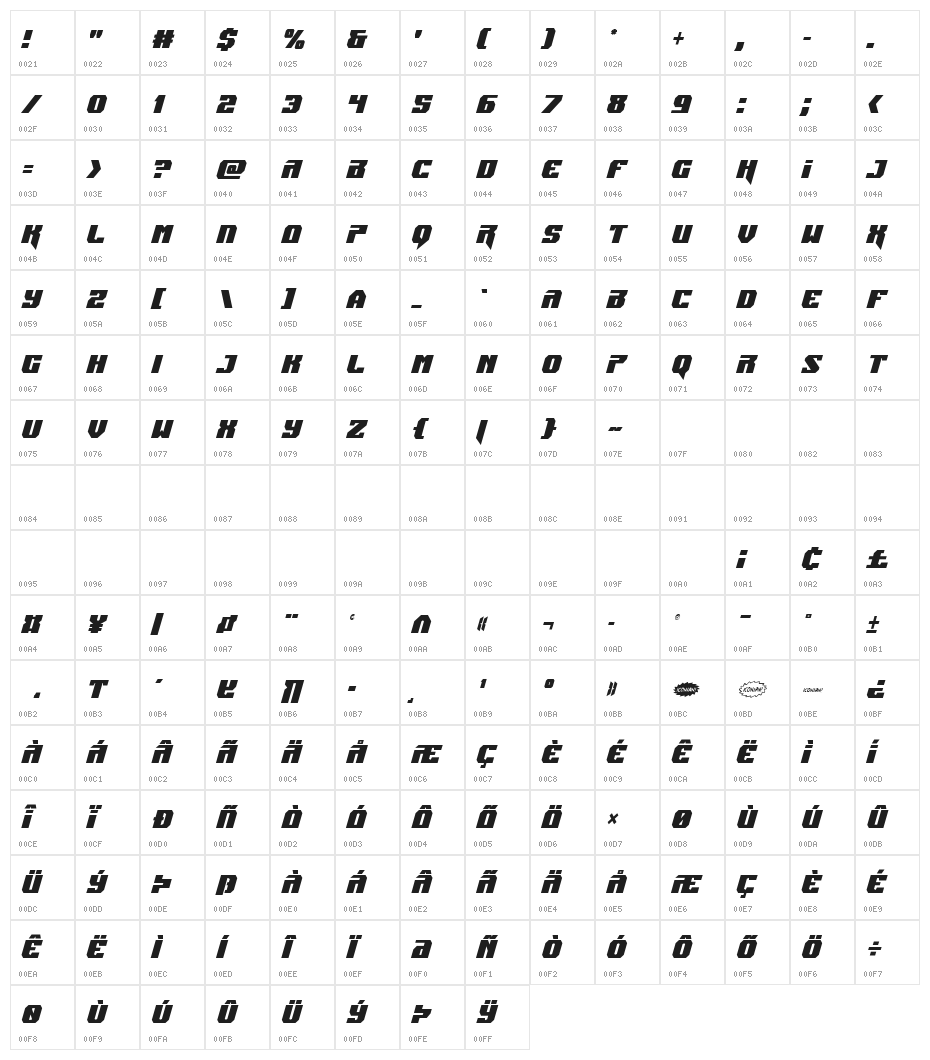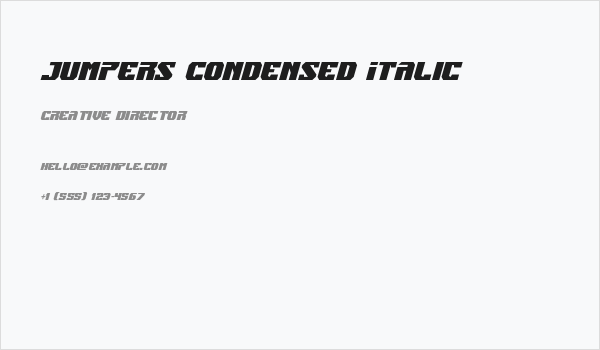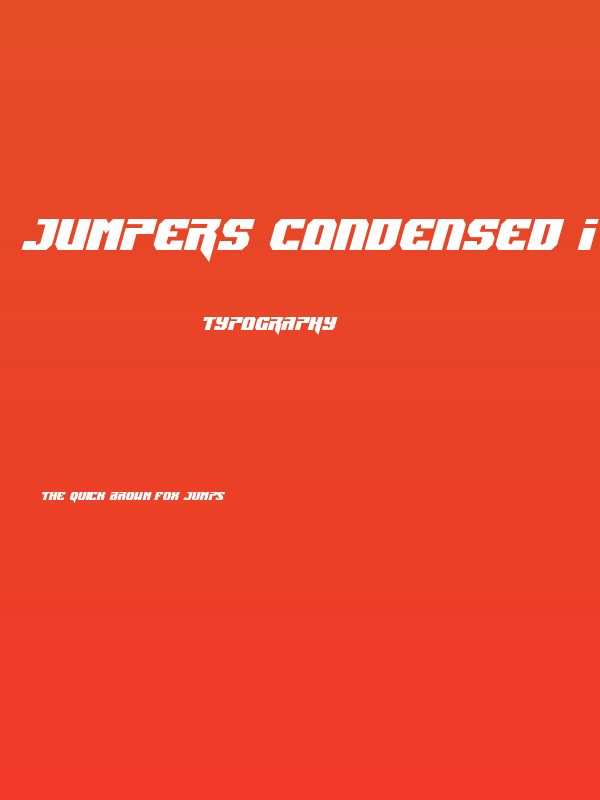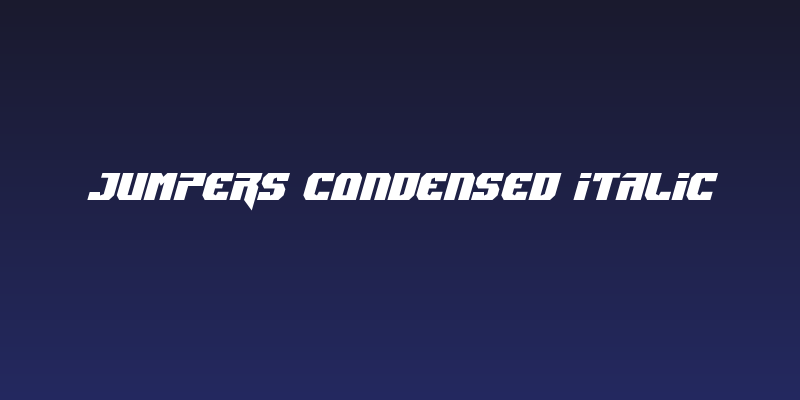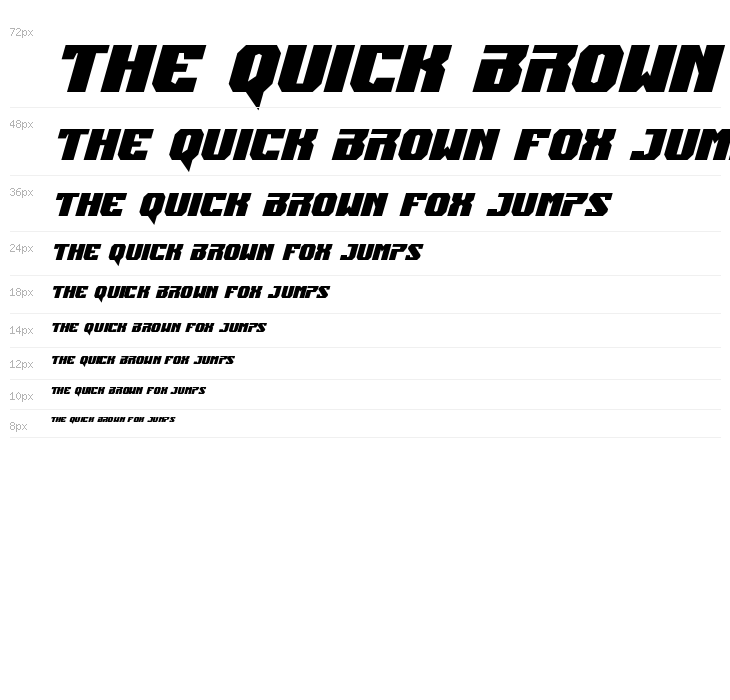
Jumpers Condensed Italic Font
Jumpers Condensed Italic Description
This font features a bold and dynamic design with a condensed and italicized style. The characters are sharply angled, creating a sense of movement and energy. The uppercase letters are particularly striking, with a geometric and futuristic appearance. The numbers and special characters maintain the same boldness and angularity, ensuring consistency across all glyphs. This font's unique style makes it stand out, with each character having a distinct, edgy look that is both modern and aggressive.
| Proposed Projects | Ideal for sports branding, action movie posters, video game titles, and dynamic advertising campaigns. |